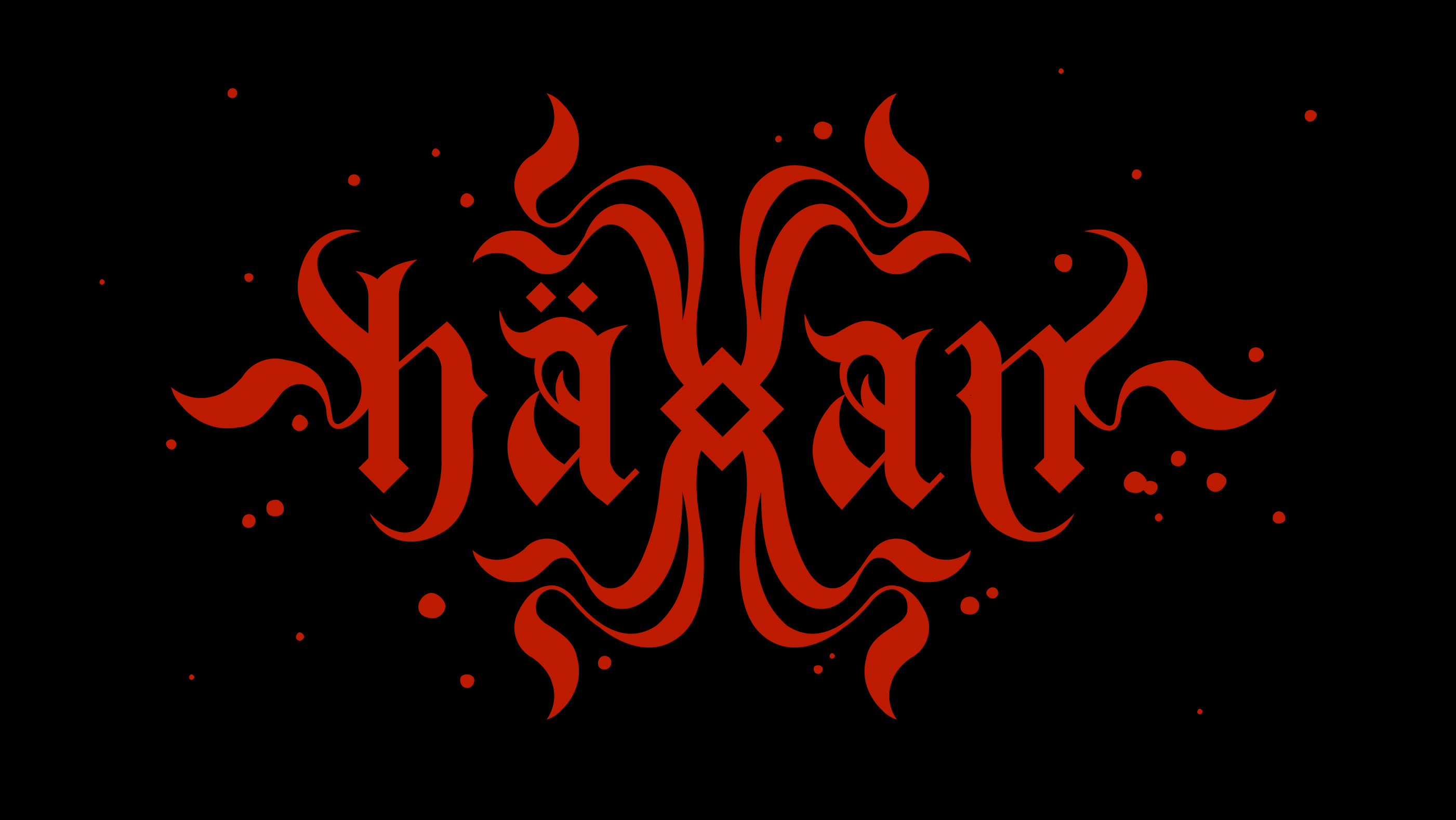
Haxan
Inspired by the Swedish word for the witch, this design uses a handwritten style. The letters slowly extend, like a spell searching its way through the composition.